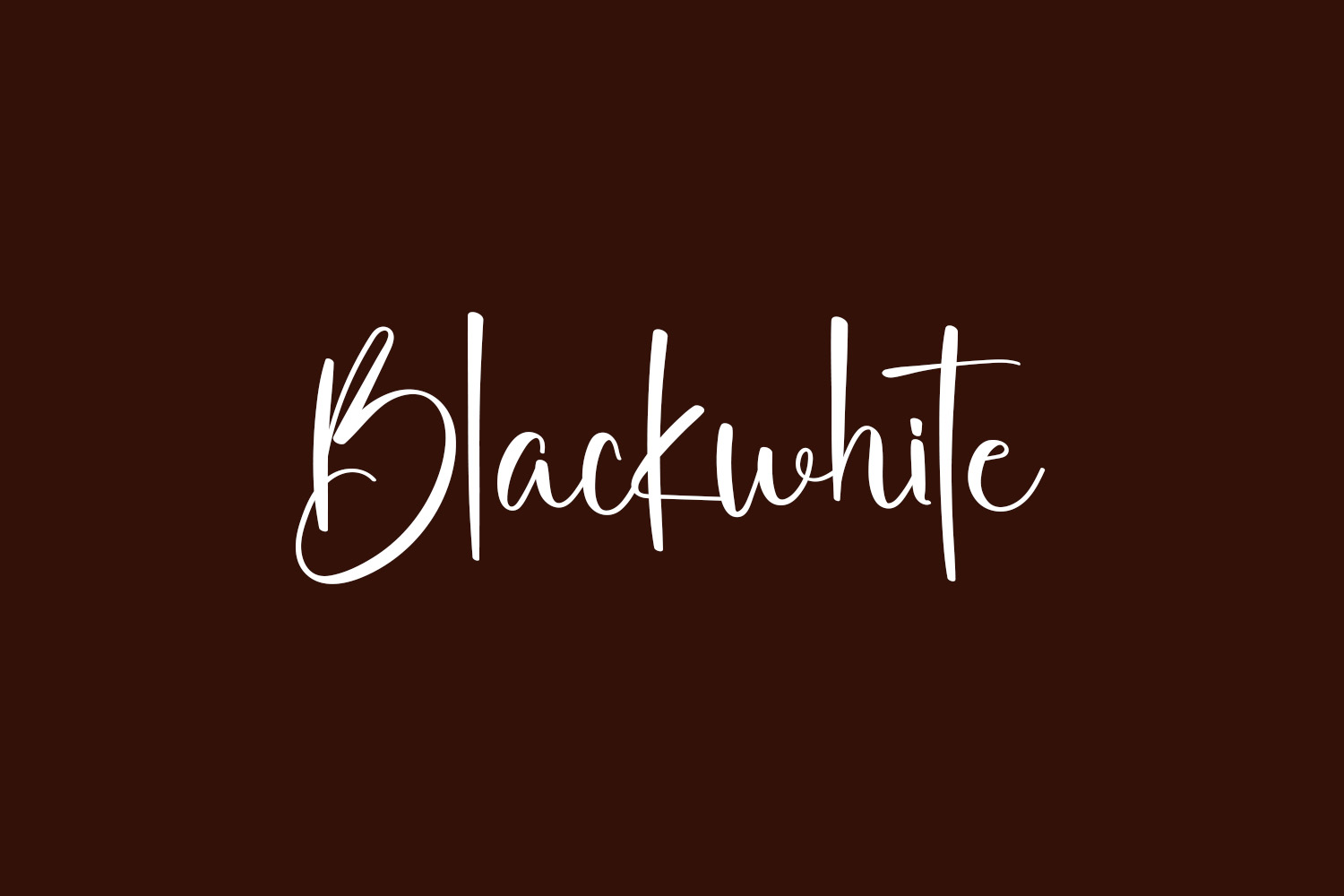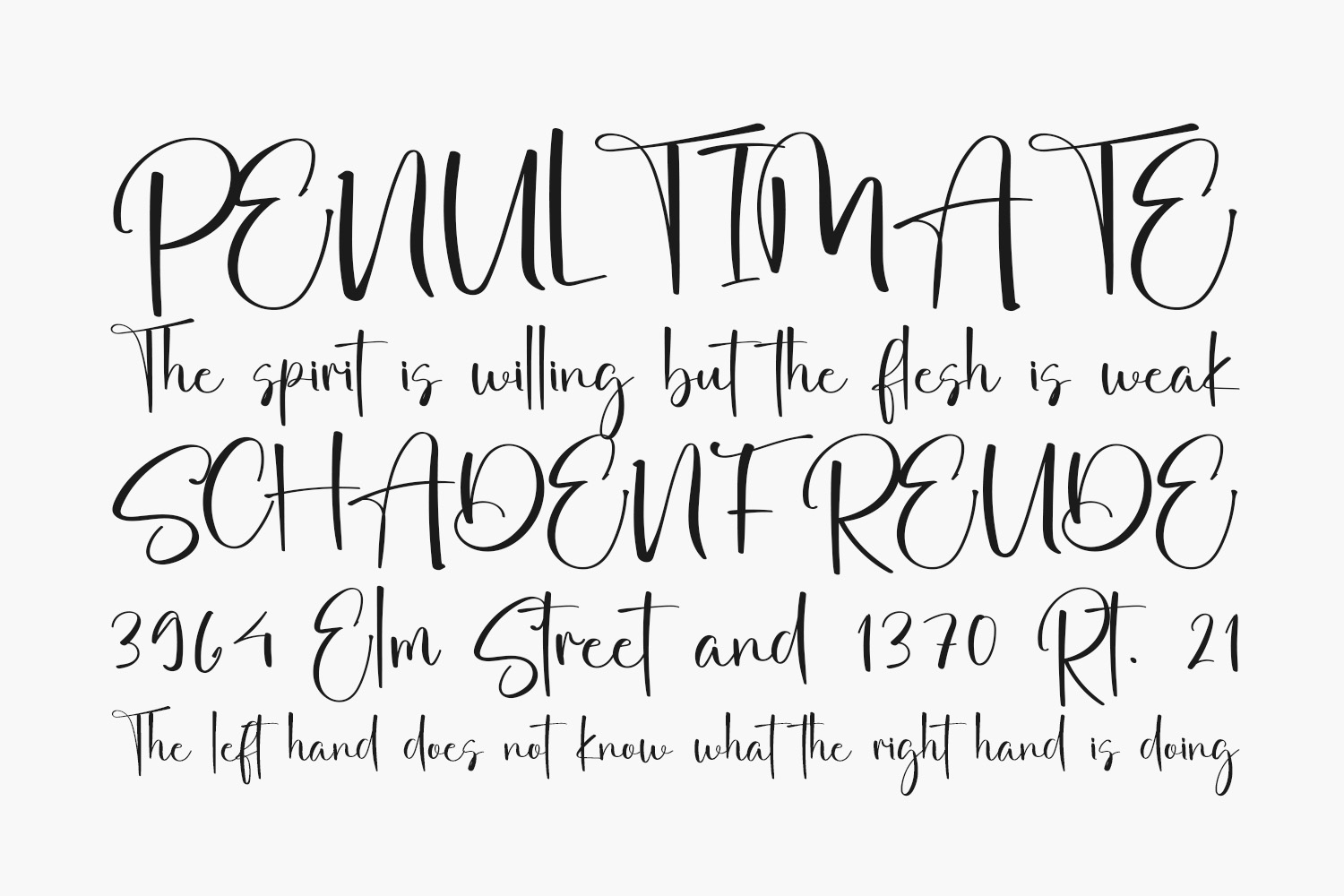
Blackwhite Free Font is a delicate, elegant and flowing handwritten font. It has beautiful and well balanced characters and as a result, it matches a wide pool of designs. Add it to your most creative ideas and notice how it makes them come alive. Blackwhite Free Font was designed by Inermedia Studio and is free for personal use only. Please purchase the full version for commercial use.
Designed by Inermedia Studio